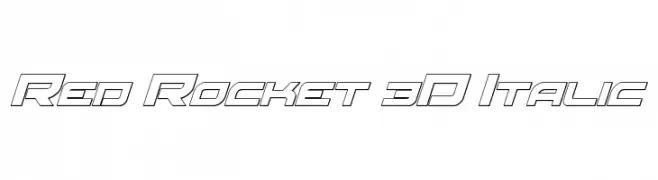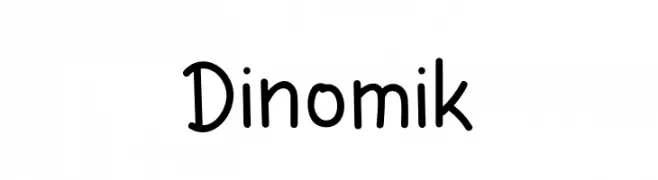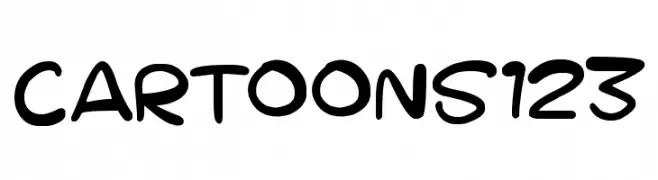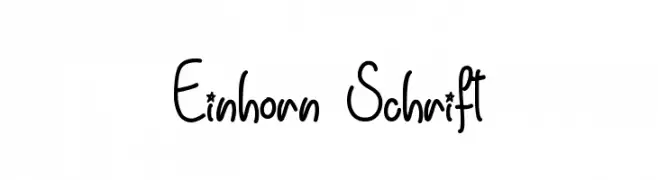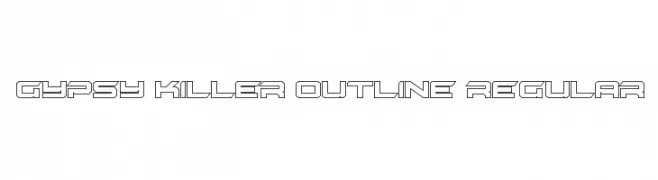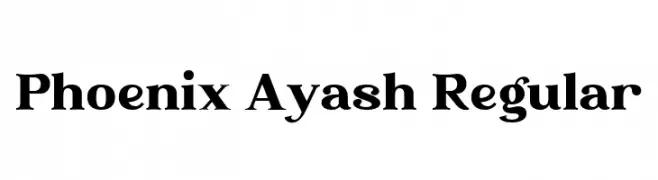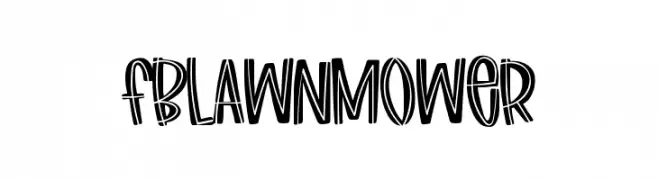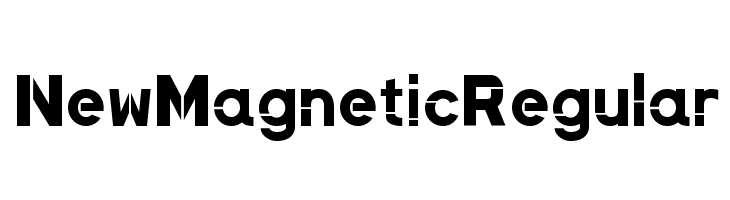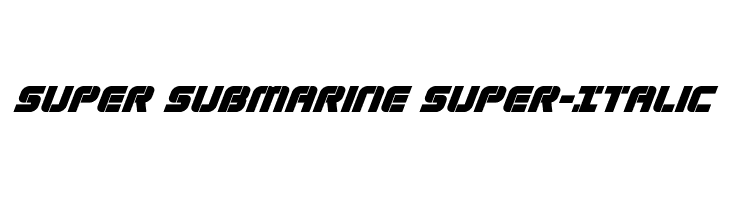
A futuristic, italicized font with a 3D effect and bold geometric lines.
A playful, hand-drawn font with rounded, irregular letterforms.
Hand-drawn, artistic font with abstract sketches and surreal motifs.
A playful, bold font with a hand-drawn, comic book style.
A dynamic, handwritten font with angular, artistic strokes.
A playful, handwritten font with a whimsical and friendly style.
A bold, geometric outline font with a futuristic and angular design.
A modern blackletter font with italic slant and intricate detailing.
A classic serif font with bold strokes and high contrast, exuding authority and elegance.
A playful, hand-drawn font with bold, outlined characters and a whimsical style.